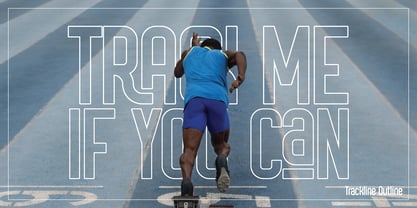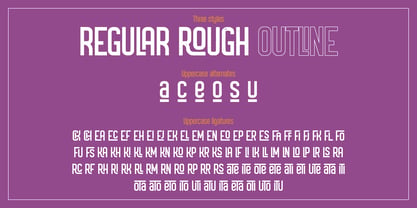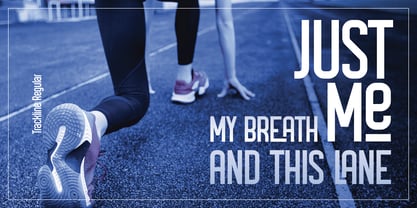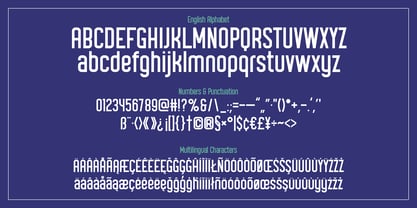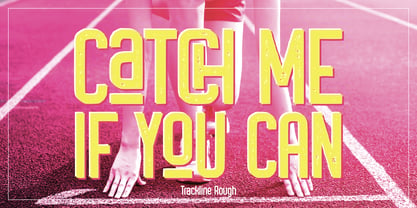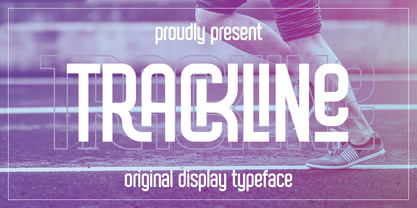
Trackline
by Vozzy
The Trackline Font Family was designed by Oleg Voznyy and published by Vozzy. Trackline contains 3 styles and family package options. More about this family
Introducing the captivating font family "Trackline," designed specifically for headlines and accent inscriptions that demand attention. This unique typeface features a rich array of additional characters, punctuation marks, and multilingual options, ensuring versatility for global applications. With an extensive selection of standard ligatures, Trackline enhances your typography, provided your software supports OpenType features. Perfect for branding, web design, and editorial projects, Trackline will elevate your beautiful designs to new heights!
Designers: Oleg Voznyy
Foundry: Vozzy